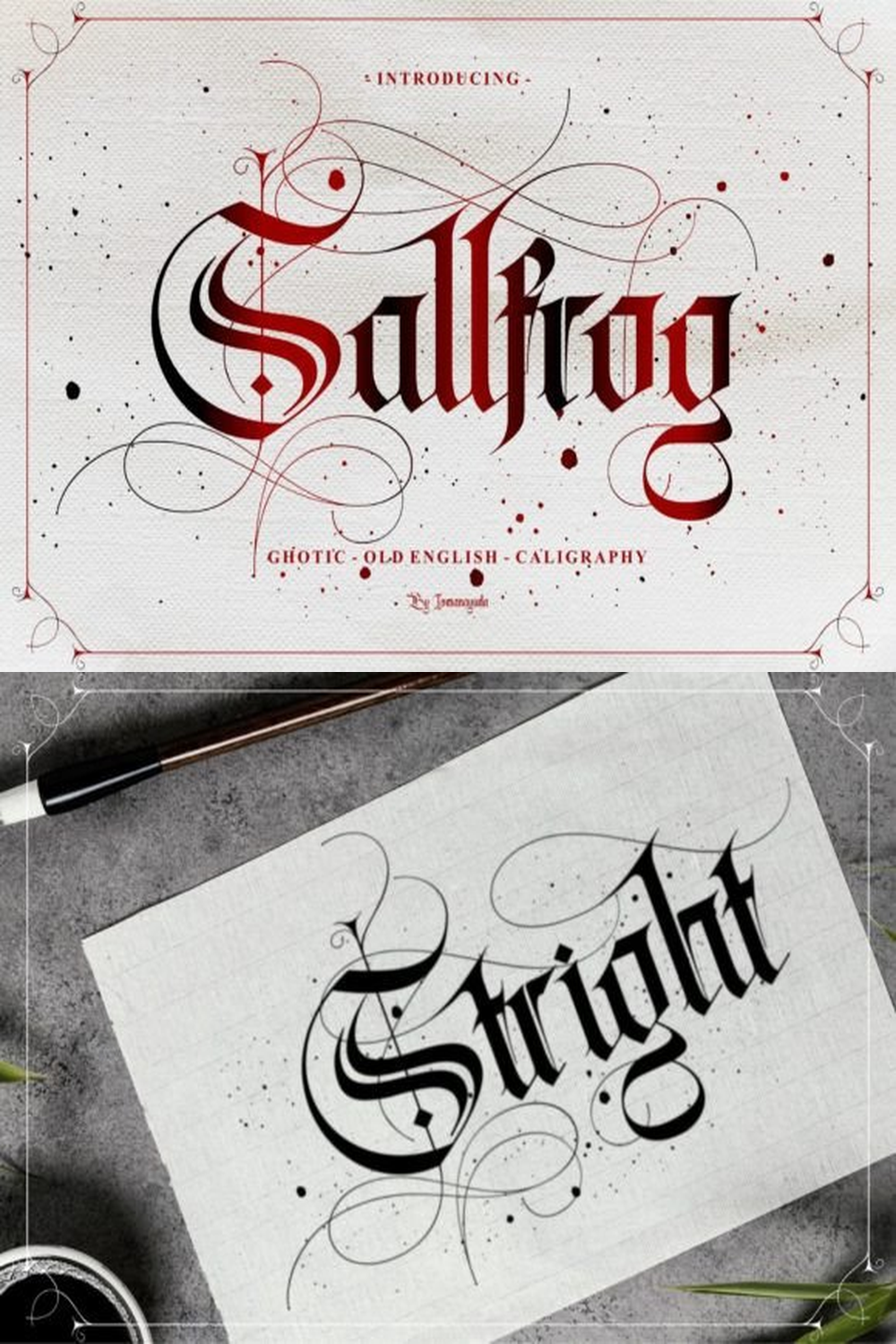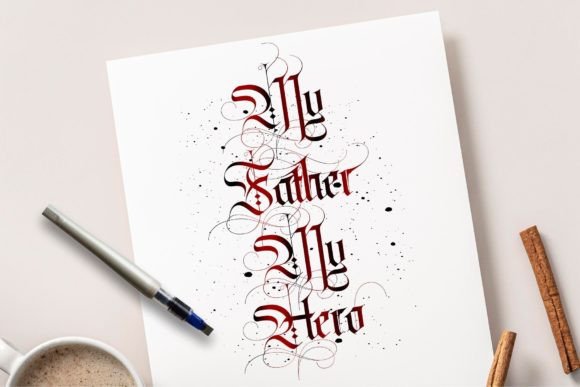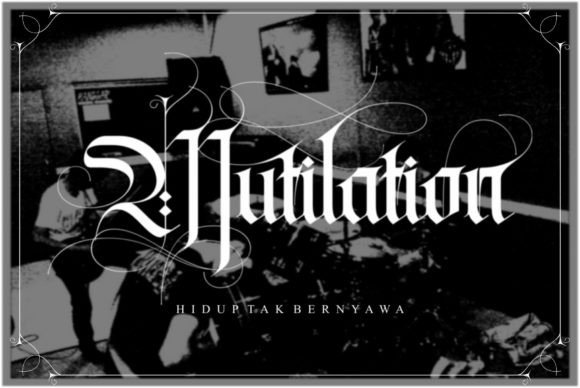
Sallfrog Font: A Bold Blackletter for Creative Logo Design & Typography
About the Sallfrog Font
We are excited to introduce Sallfrog Font, a must-have typeface for any serious designer. Sallfrog is a bold and thick lettered blackletter font. Add it confidently to your projects, and you will love the results. This font is PUA encoded which means you can access all of the glyphs and swashes with ease!